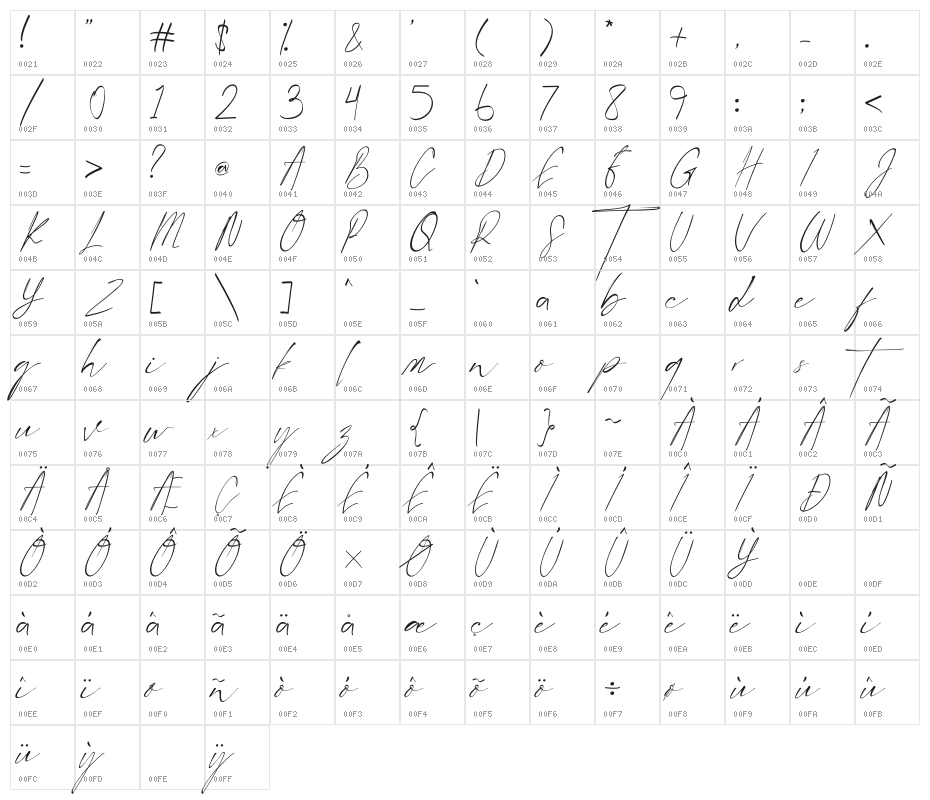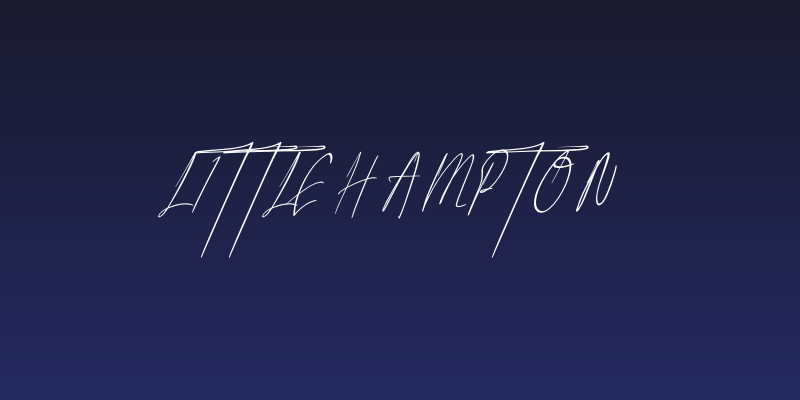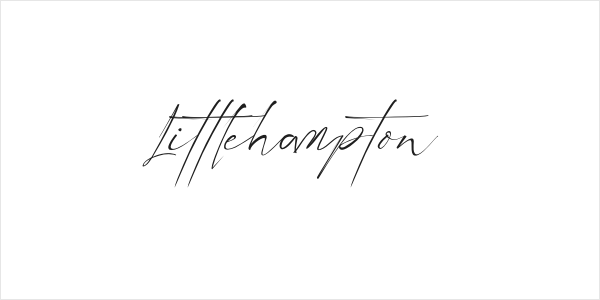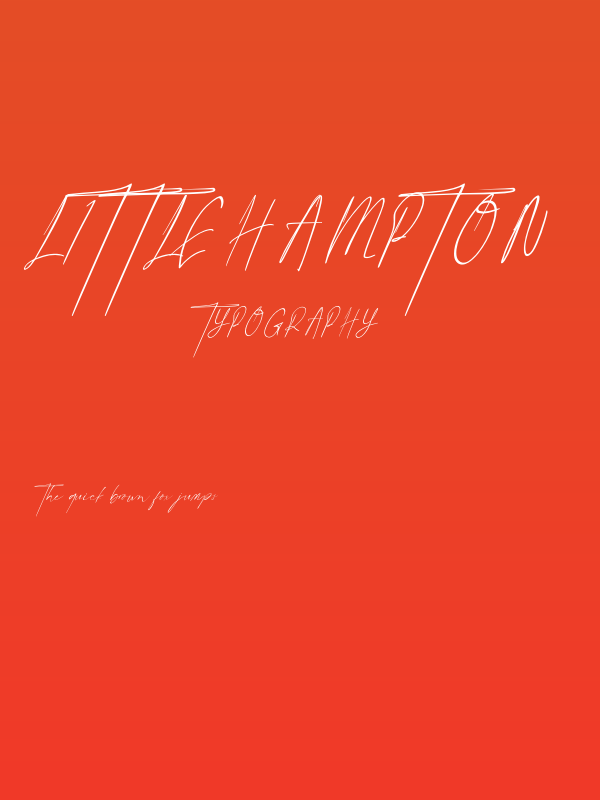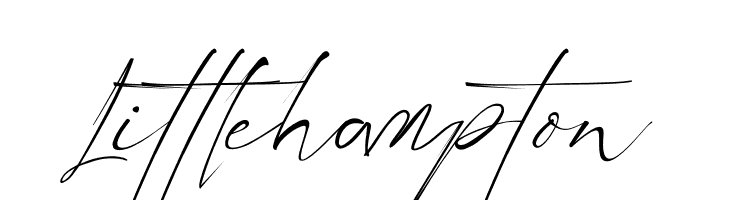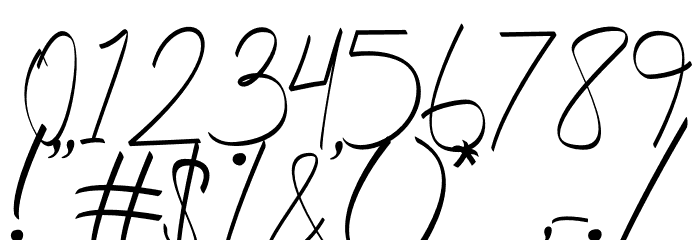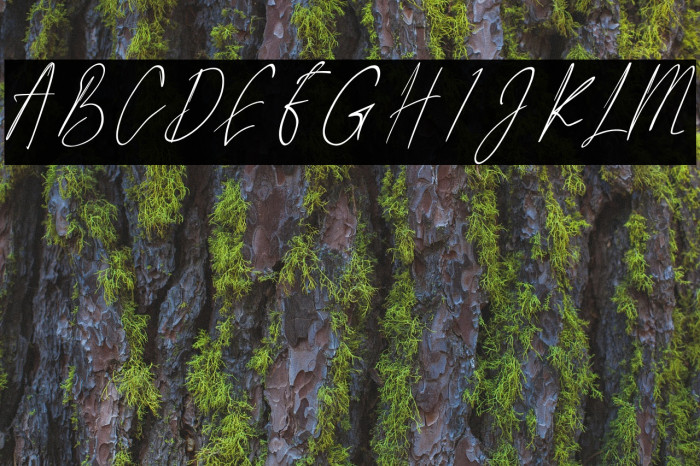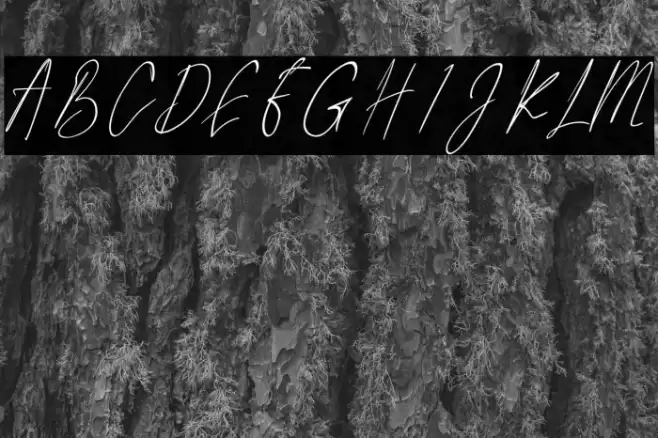
Littlehampton Font
Littlehampton Description
This font features an elegant, flowing script style that mimics natural handwriting with a touch of sophistication. The uppercase letters are tall and slender, with graceful curves and loops that add a sense of fluidity. The lowercase letters maintain a consistent style, with smooth connections and a slightly more compact form. Numbers are designed to match the overall aesthetic, with a balance of curves and straight lines. Special characters are thoughtfully integrated, maintaining the font's cohesive look. The overall appearance is both artistic and legible, making it suitable for creative and formal applications.